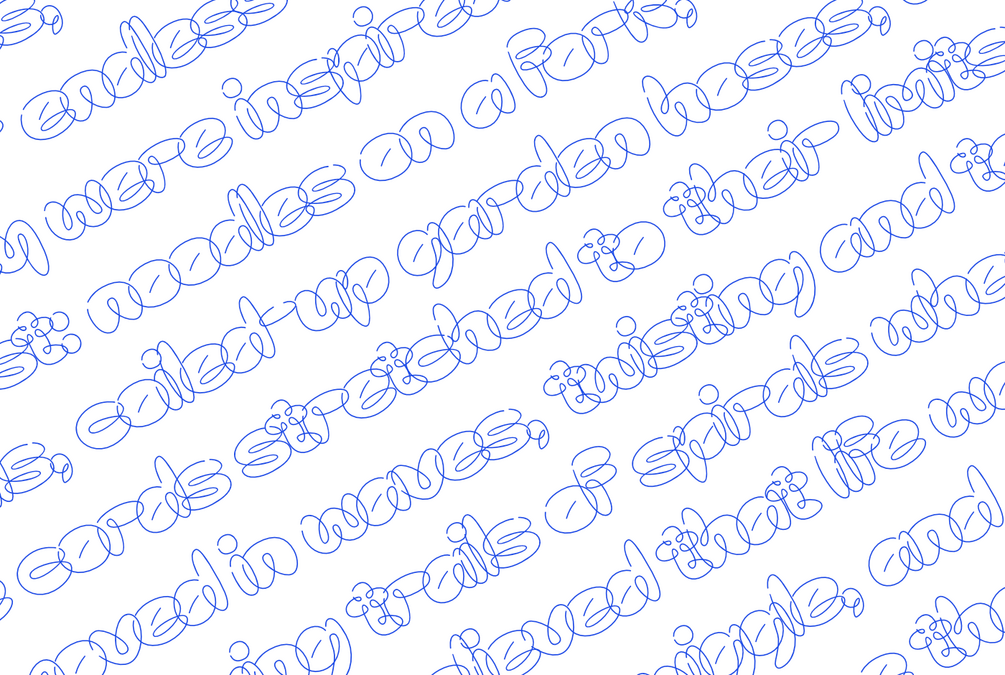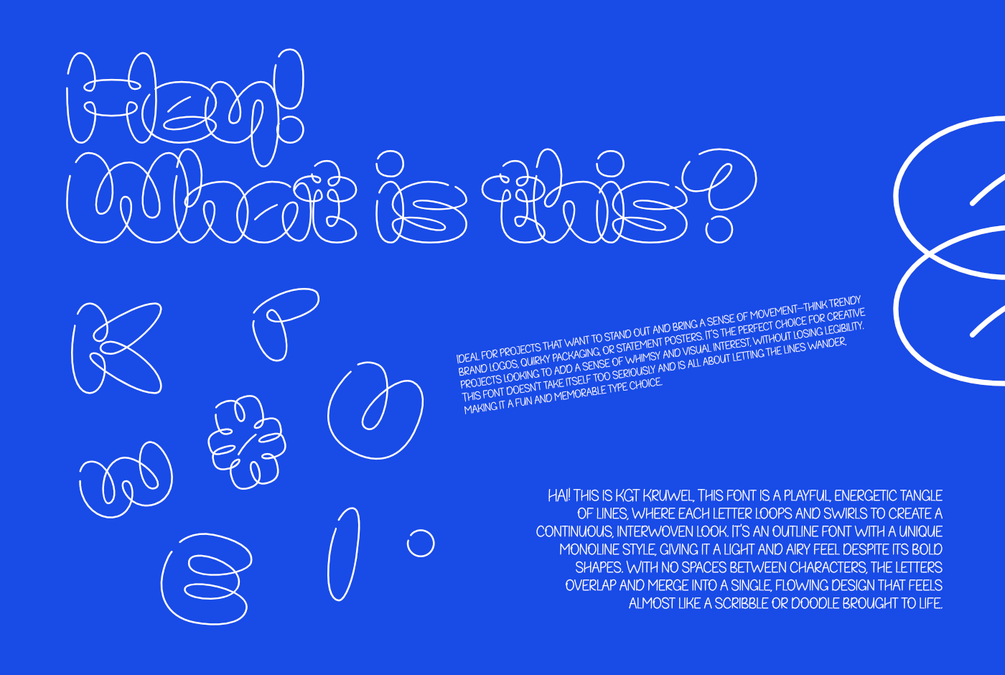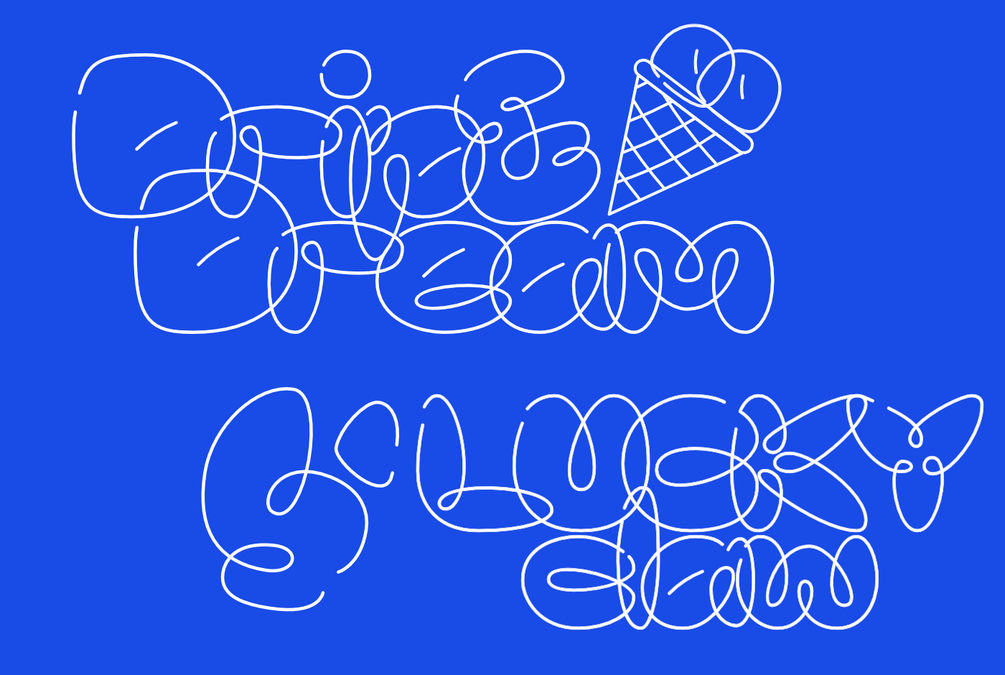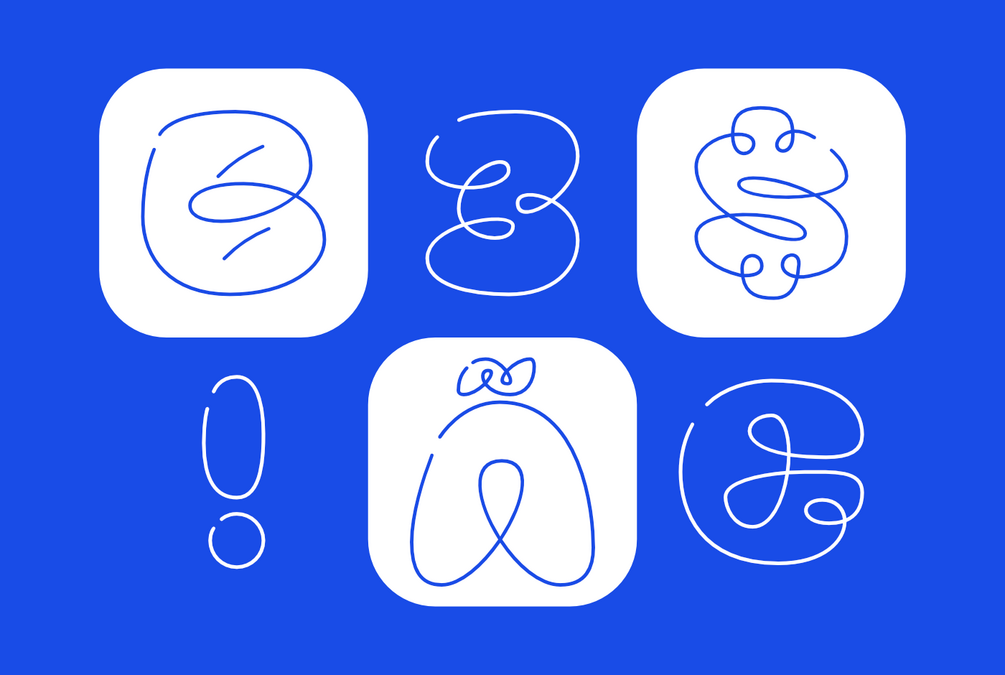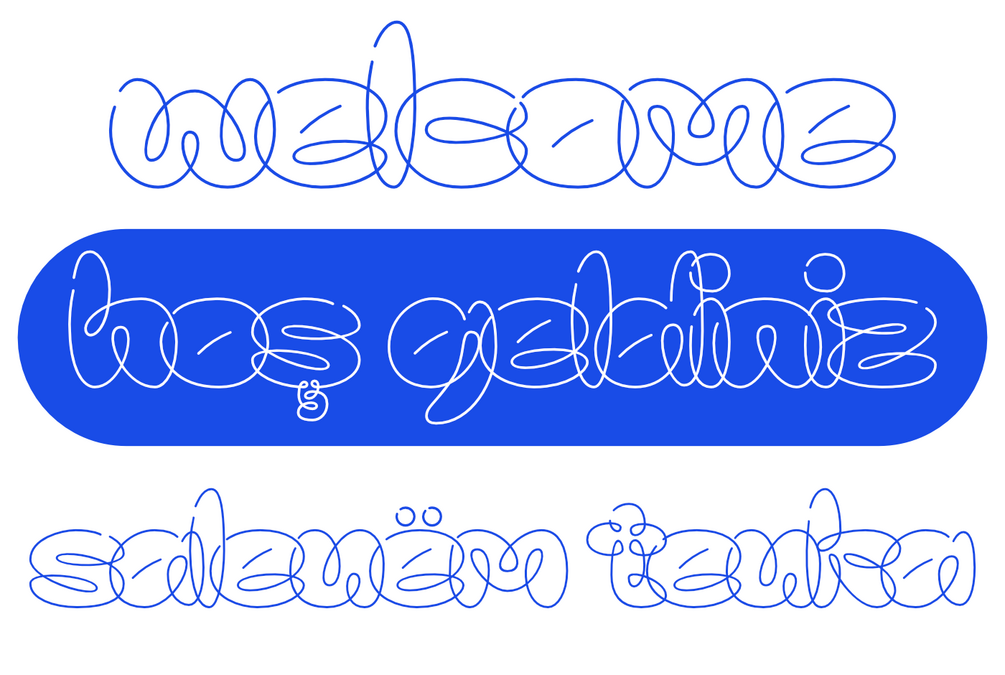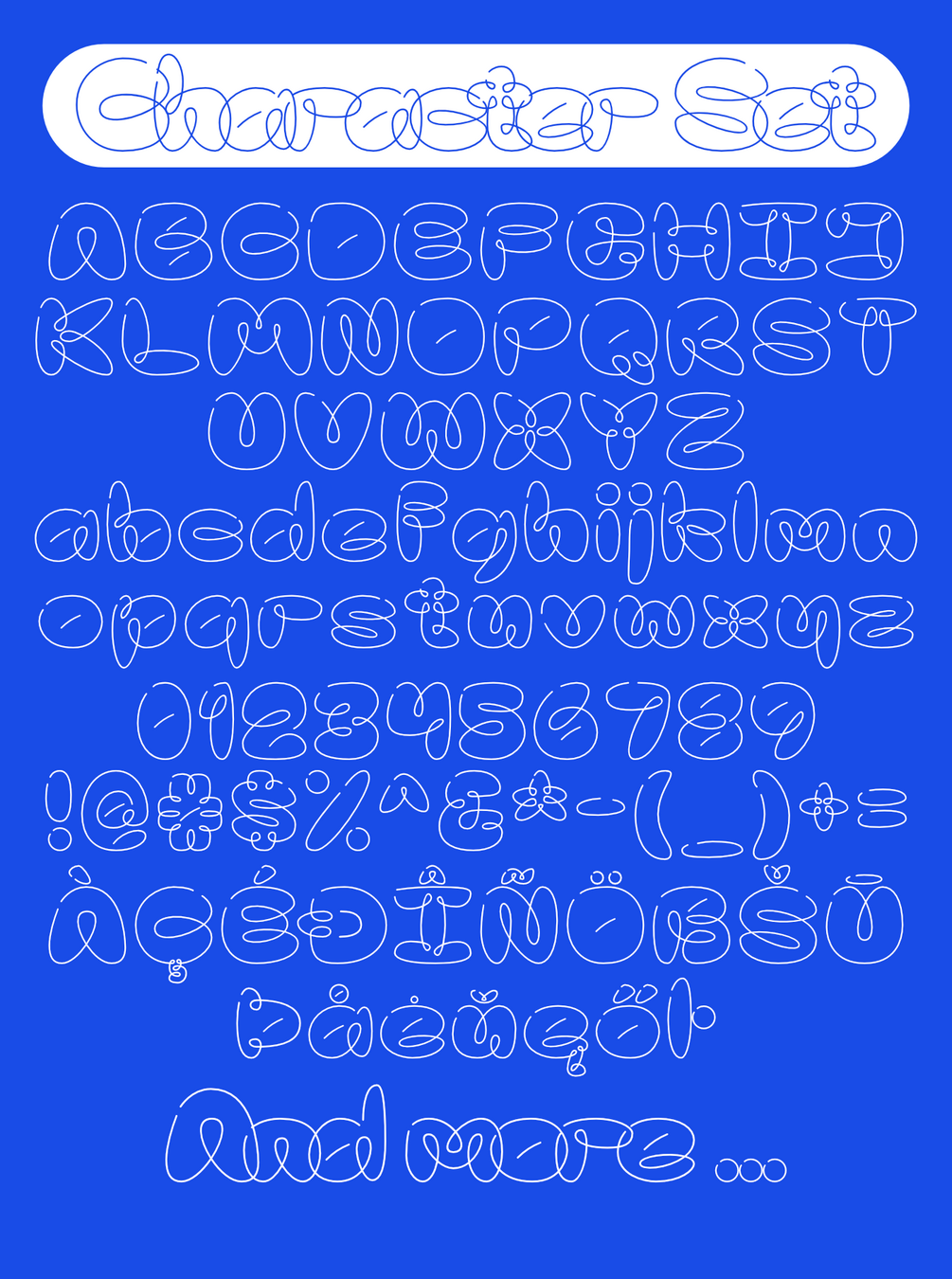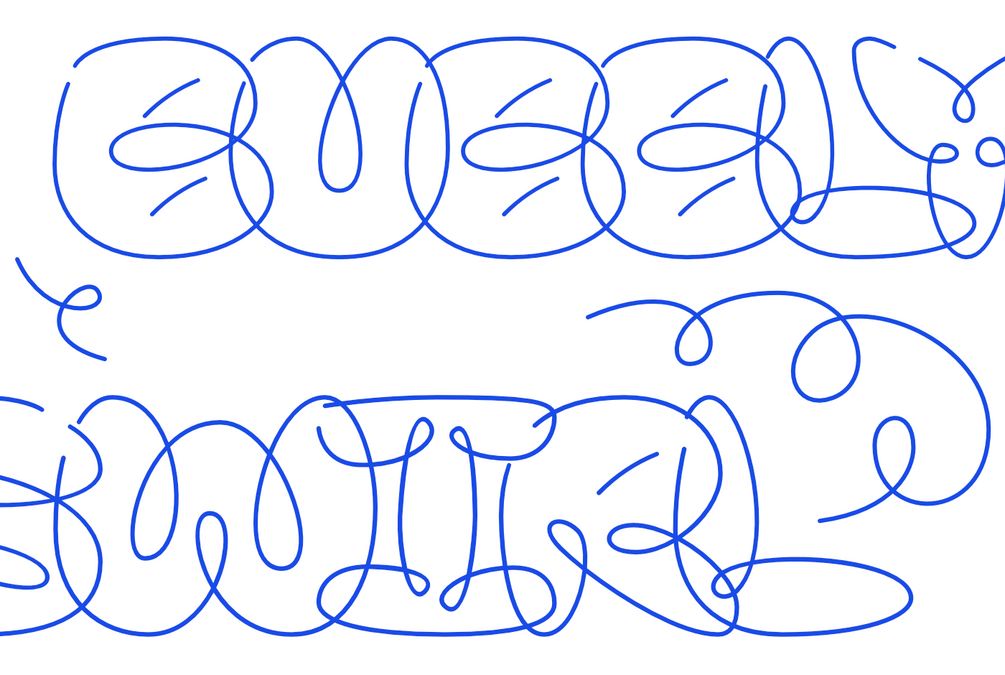
KGT Kruwel
Meet our newest font, KGT Kruwel: a lively, looping display type that brings a sense of whimsy and rhythm to any design. Each letter curls, overlaps, and flows into the next, creating a continuous, hand-drawn look that’s packed with personality. This monoline outline style is perfect for projects that want to make a fun, memorable impact—think logos, packaging, event posters, or any design where you want the text to take center stage.